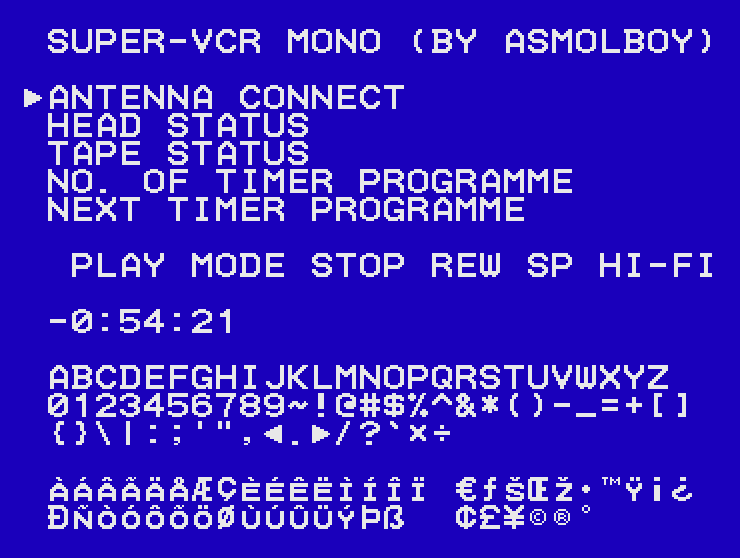
SUPER-VCR MONO by ASmolBoy A pixelated font based on the on-screen displays of VHS players/VCR's. Font size of 12px (or multiple of) is recommended to get nice square pixels. No antialising. Includes support for accented, currency, and other miscellaneous characters. This font is licensed under CC BY 4.0: https://creativecommons.org/licenses/by/4.0/ Author's Twitter: https://twitter.com/AVerySmolBoy |